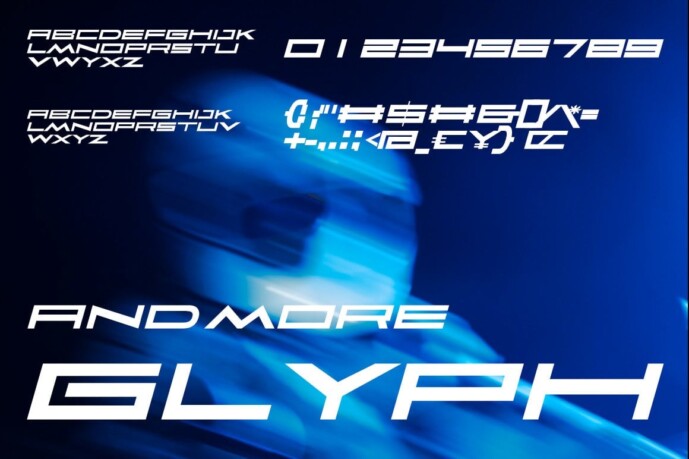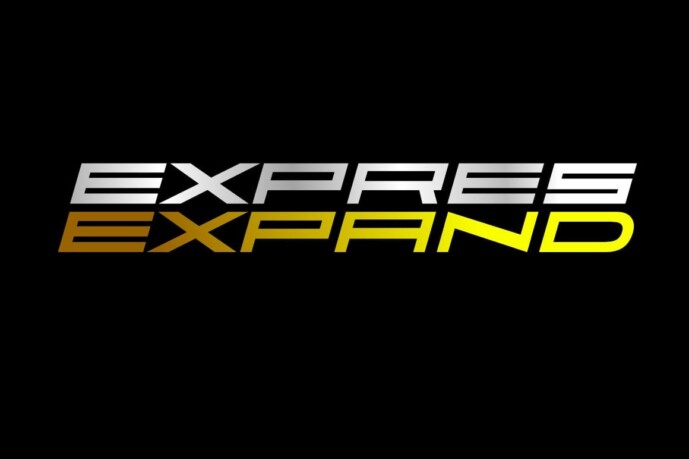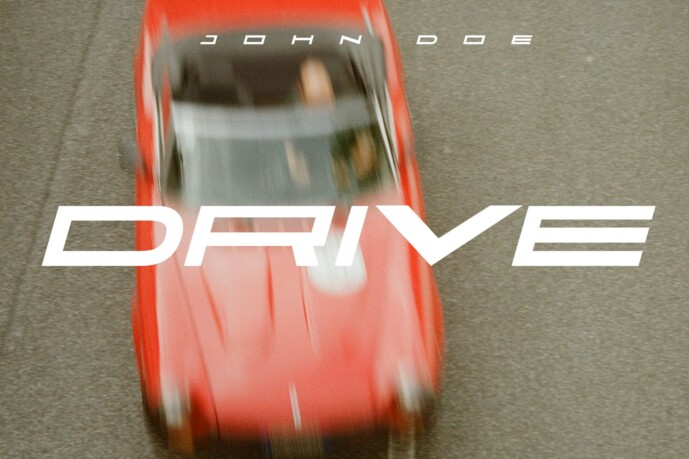
Faqro Extended Expand Italic Font
Faqro Extended Expand Italic Font, feel the adrenaline rush with every curve. This font is designed to capture the speed and excitement of the racetrack. Bold strokes and sharp edges evoke the thrill of competition. Perfect for creating a high-octane, dynamic design.